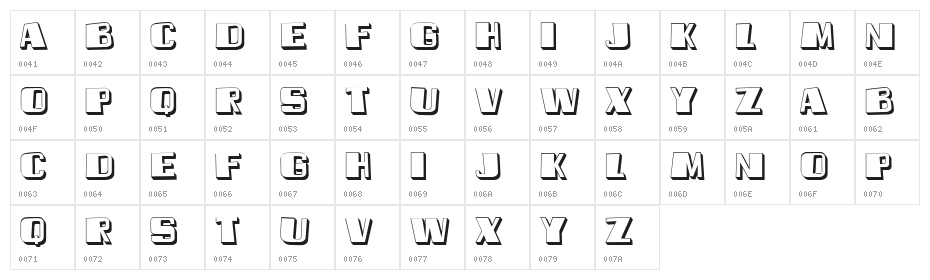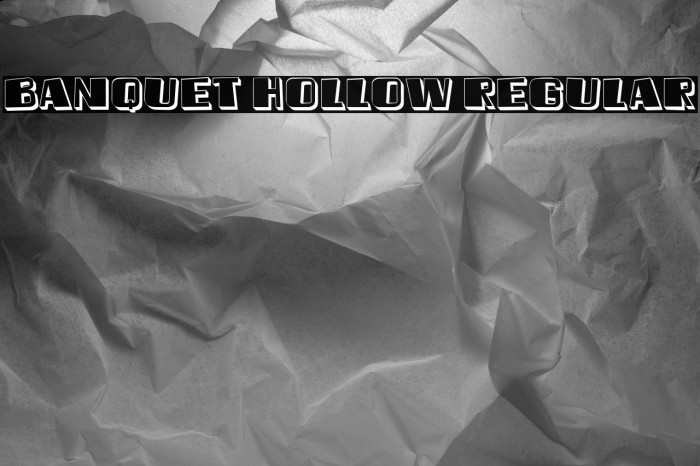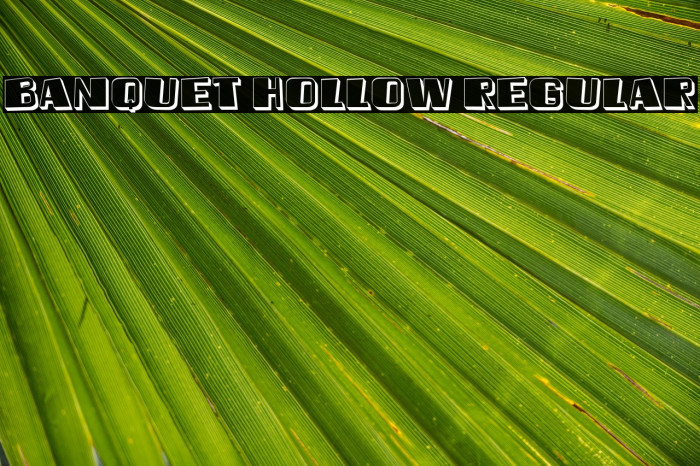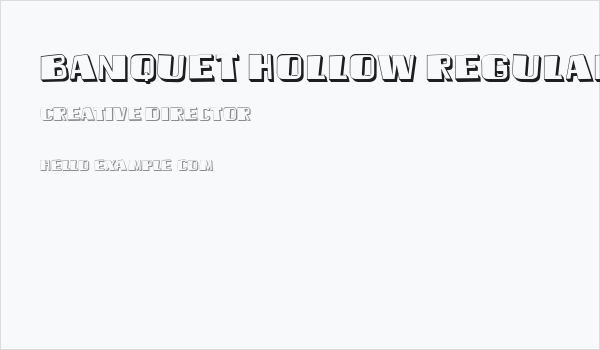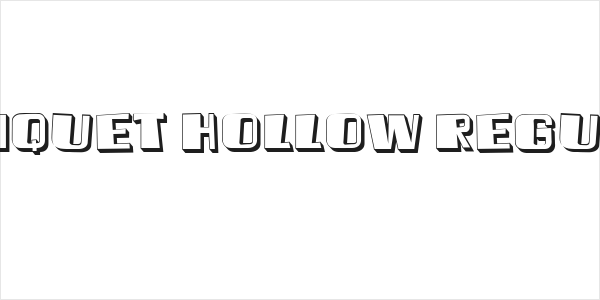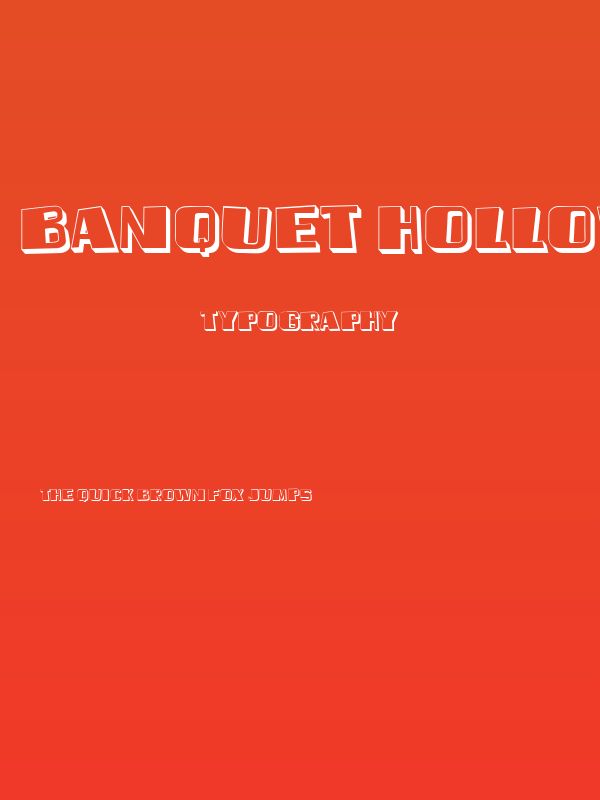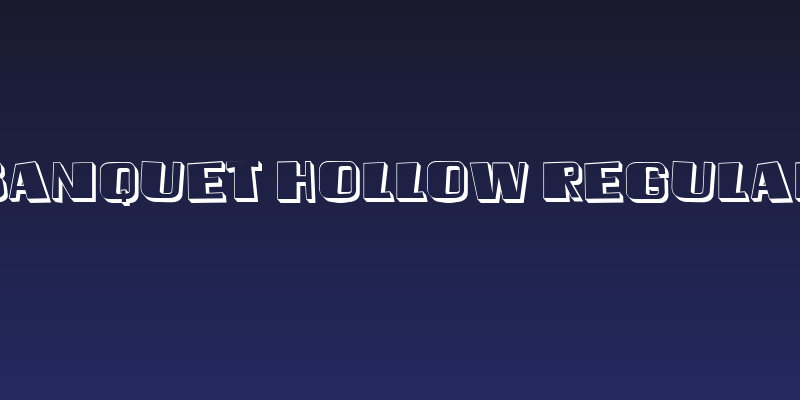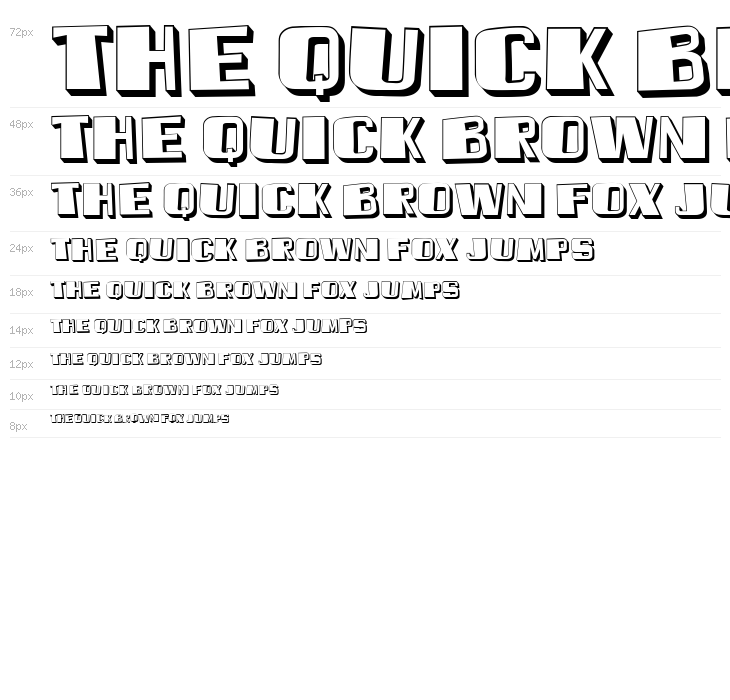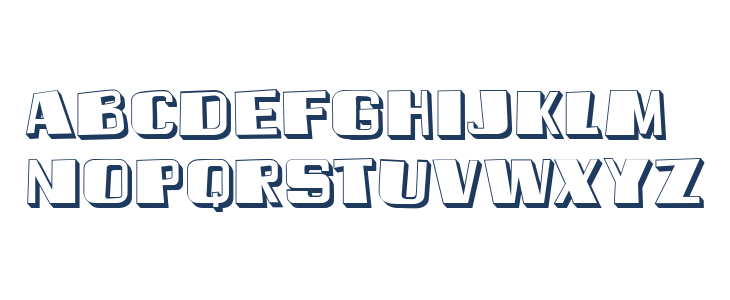
Banquet Hollow Regular Font
Banquet Hollow Regular Description
This font features a bold, hollow design with a three-dimensional effect, giving each character a distinct shadowed appearance. The uppercase letters are uniform in height and width, creating a cohesive and structured look. The hollow aspect adds a playful and eye-catching element, making it stand out in any design. The font maintains a consistent stroke width throughout, contributing to its balanced and harmonious style. Its unique design is suitable for projects that require a bold statement, while the hollow aspect ensures it remains visually light and engaging.
| Proposed Projects | Ideal for posters, headlines, logos, and any design requiring a bold, eye-catching font. |